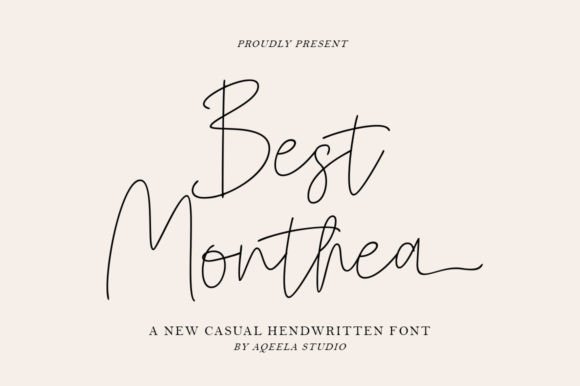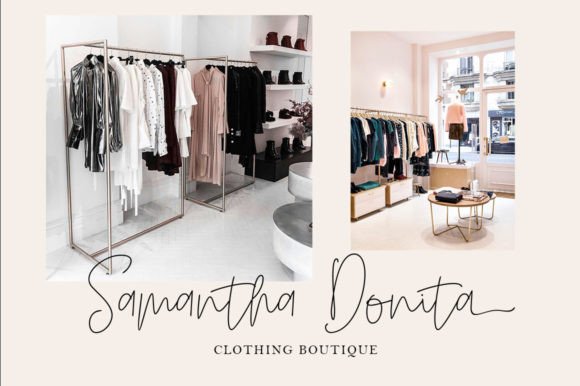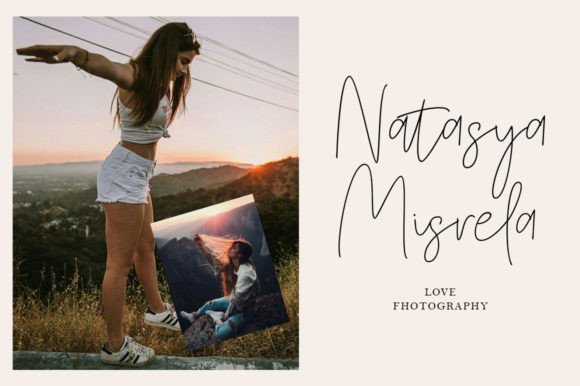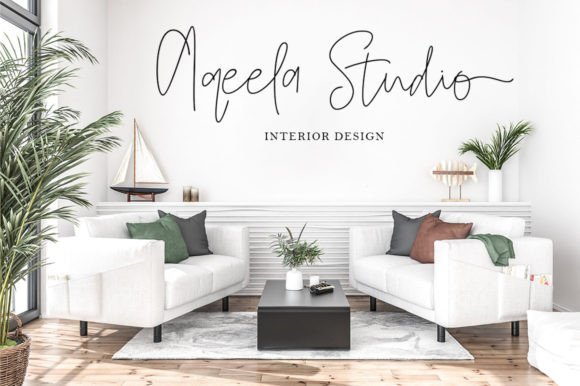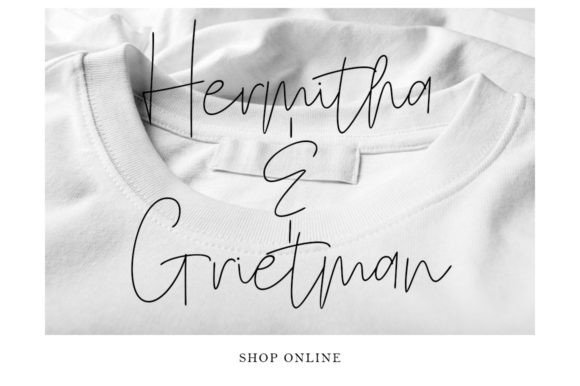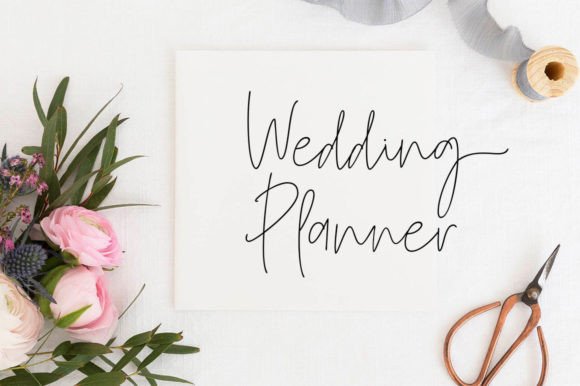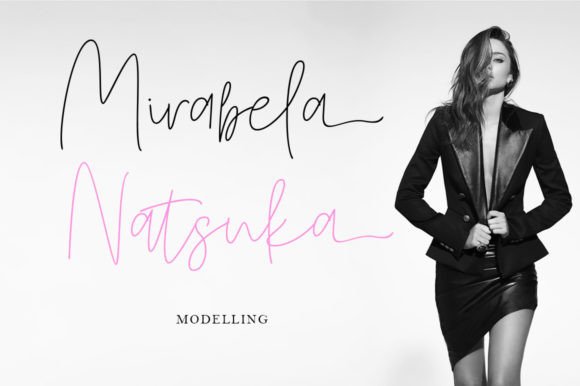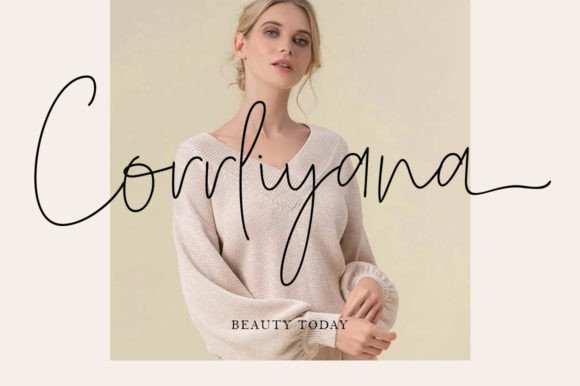
Best Monthea Font
About Best Monthea Font
“Best Monthea” is a signature font with a natural and stylish flow. This font is a perfect choice for a wide range of projects, offering versatility and elegance. Whether you’re working on logos, branding, invitations, stationery, wedding designs, social media posts, advertisements, product packaging, product designs, labels, photography, watermarks, special events, or any other creative endeavor, “Best Monthea” promises to enhance your work with its distinctive and refined aesthetic.
The natural and stylish flow of this signature font adds a touch of authenticity and personalization to your text. It brings a sense of fluidity and grace, making it suitable for projects that require an elegant and contemporary look.
The versatility of “Best Monthea” is highlighted by its compatibility with a broad spectrum of design applications. Whether used in digital or print, this font seamlessly integrates into various contexts, offering a sophisticated and polished appearance.
For branding and logo designs, “Best Monthea” becomes a signature element that communicates a sense of professionalism and uniqueness. Its application on invitations, stationery, and wedding designs enhances the overall aesthetic with a touch of elegance.
In product packaging and advertisements, this font adds a refined and stylish element that can captivate the audience. Its suitability for labels, photography, watermarks, and special events underscores its adaptability across diverse creative projects.
In summary, “Best Monthea” stands out as a signature font that effortlessly combines a natural and stylish flow. Its versatility makes it a valuable asset for designers seeking a font that can elevate a wide range of projects, providing a touch of sophistication and uniqueness to each creative endeavor.